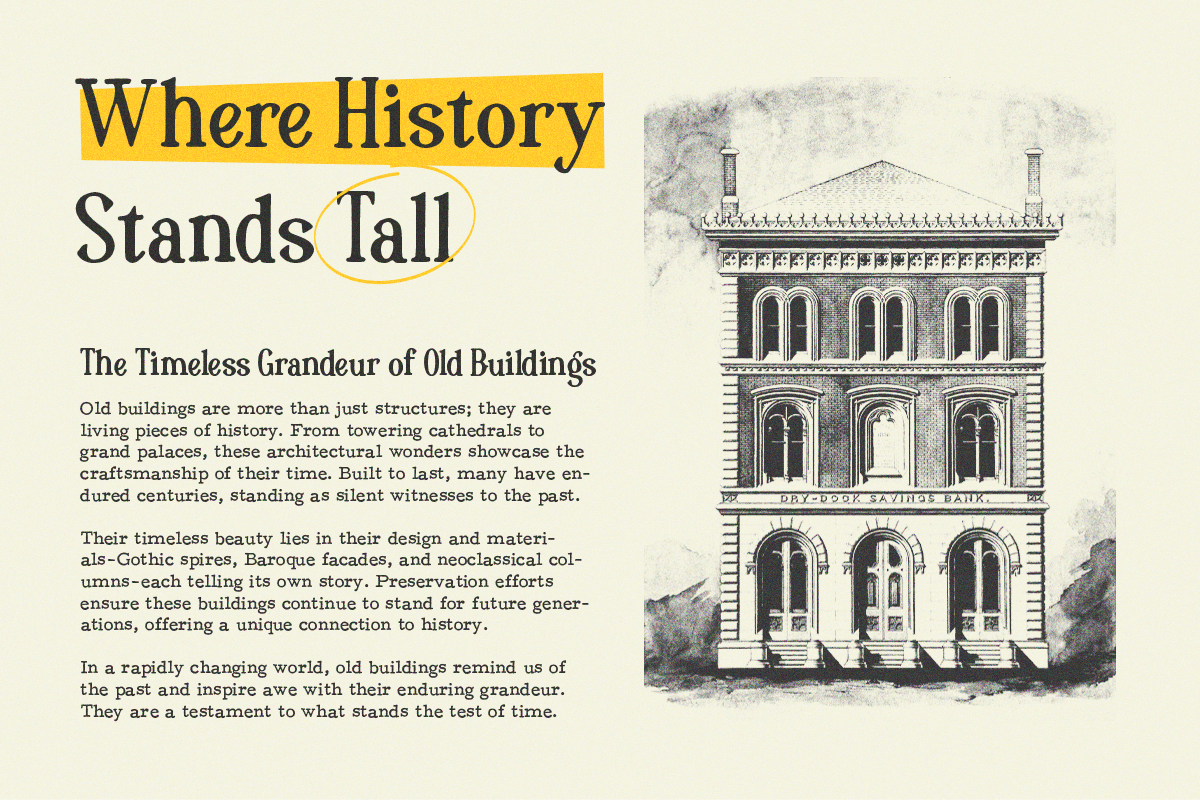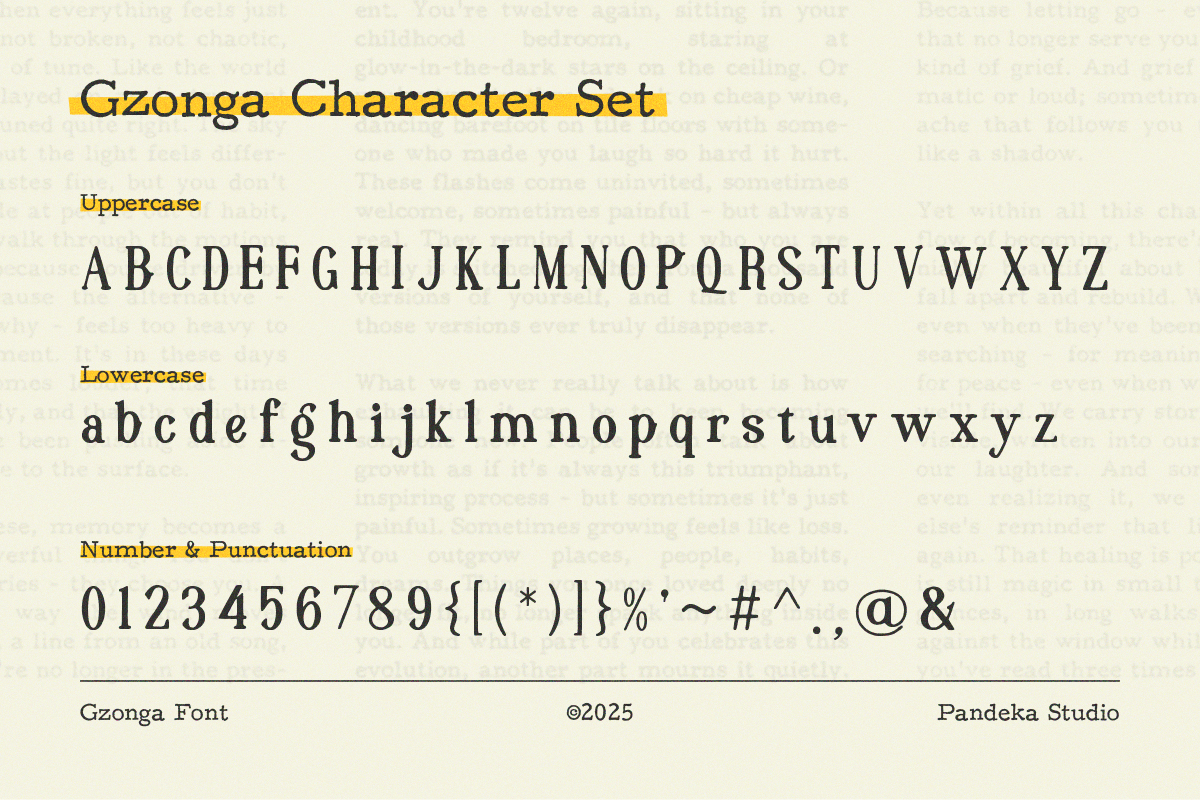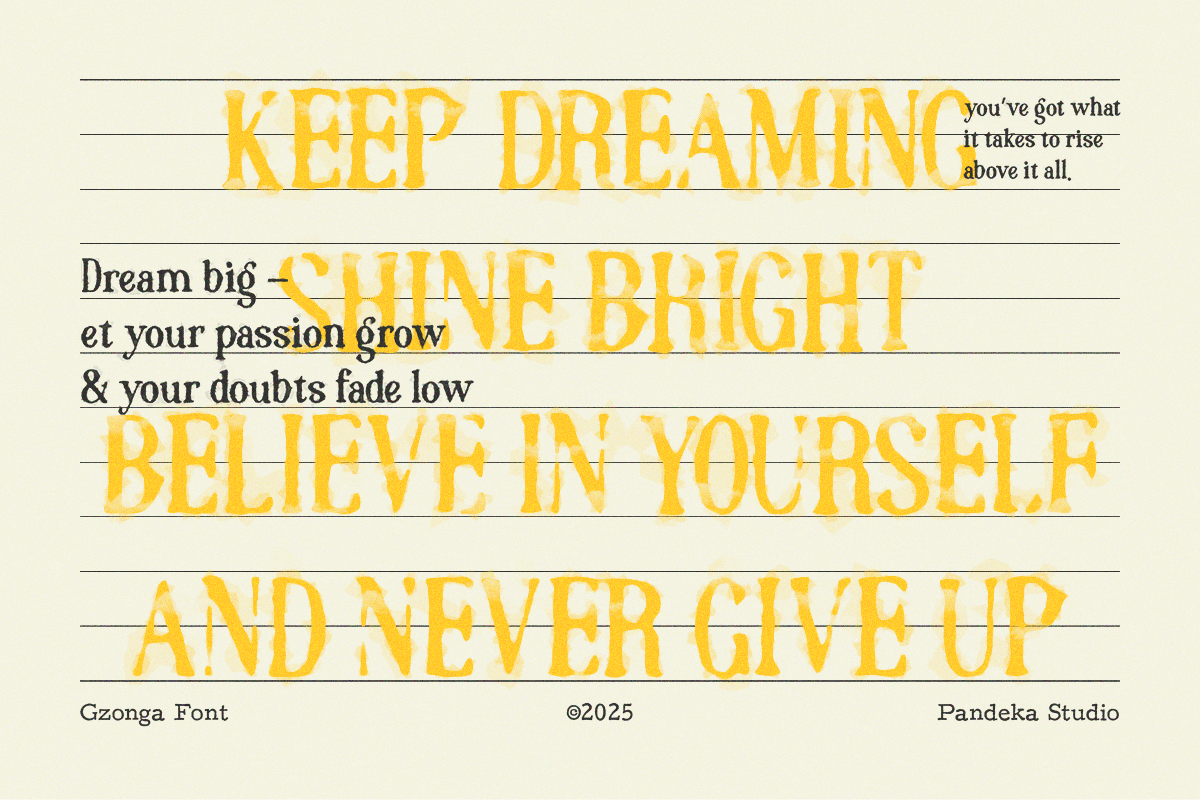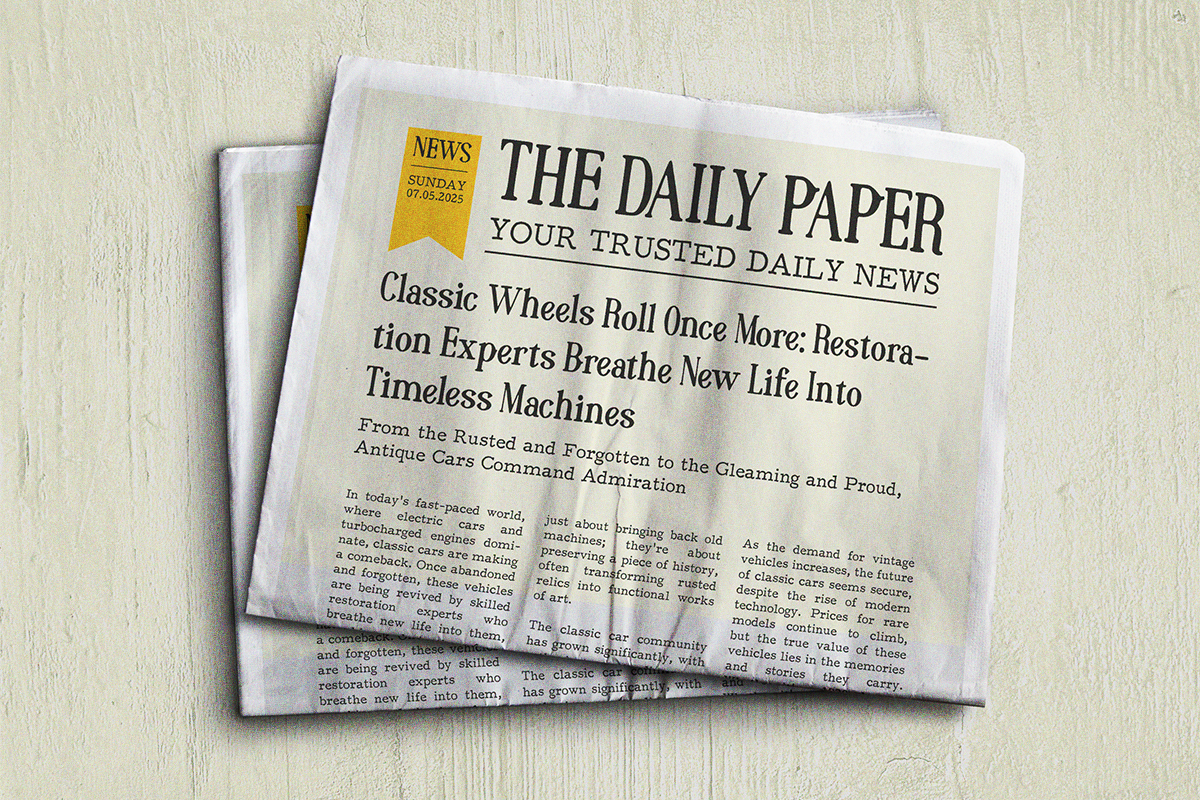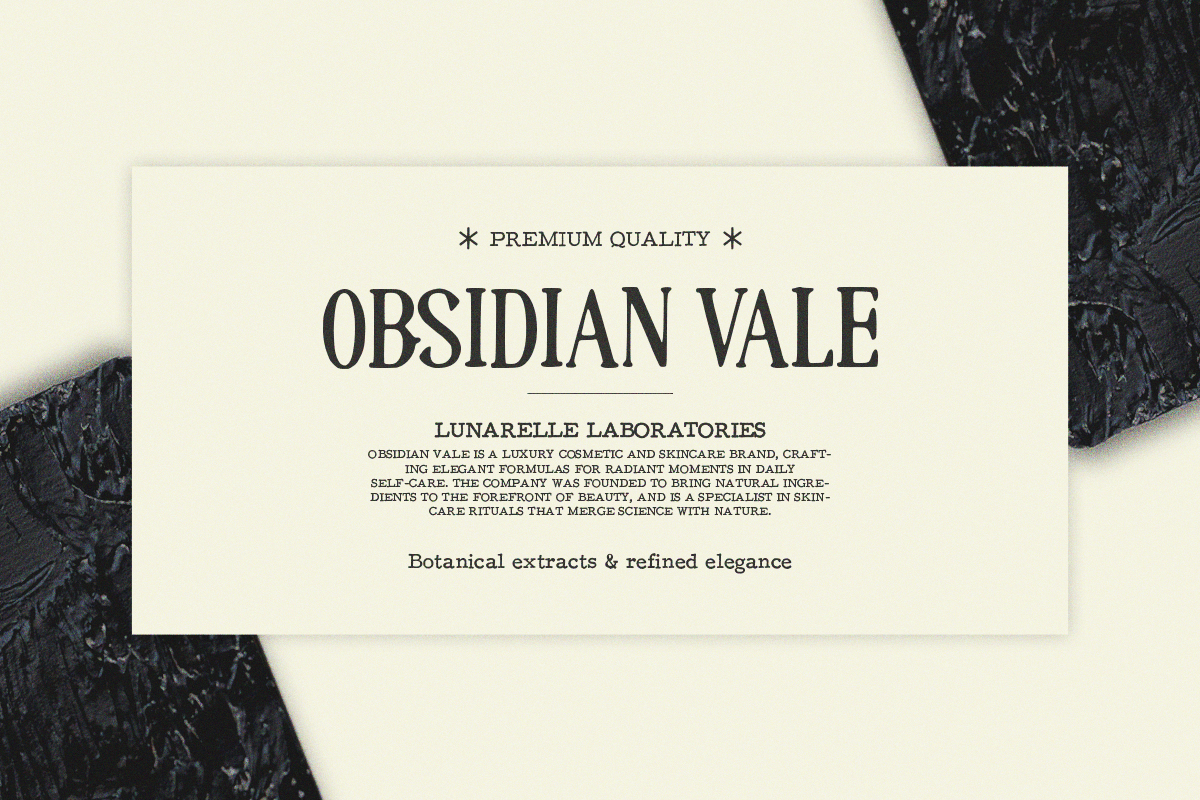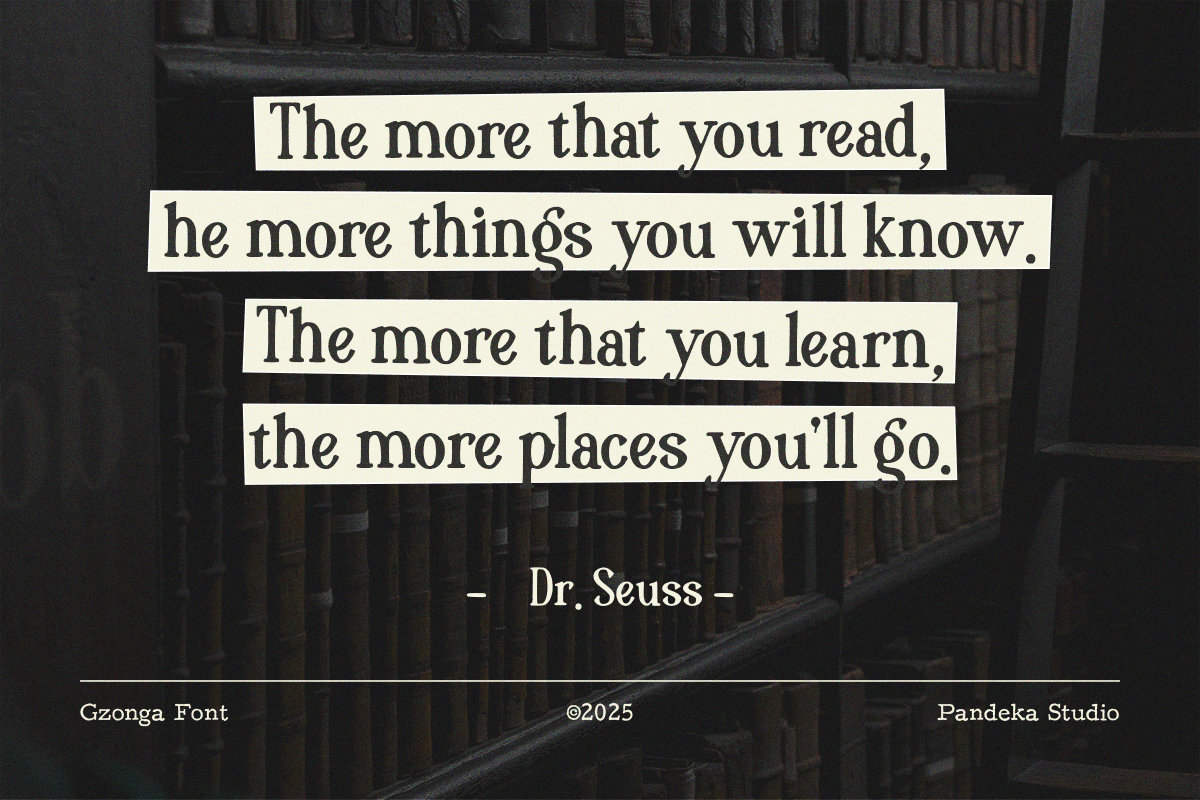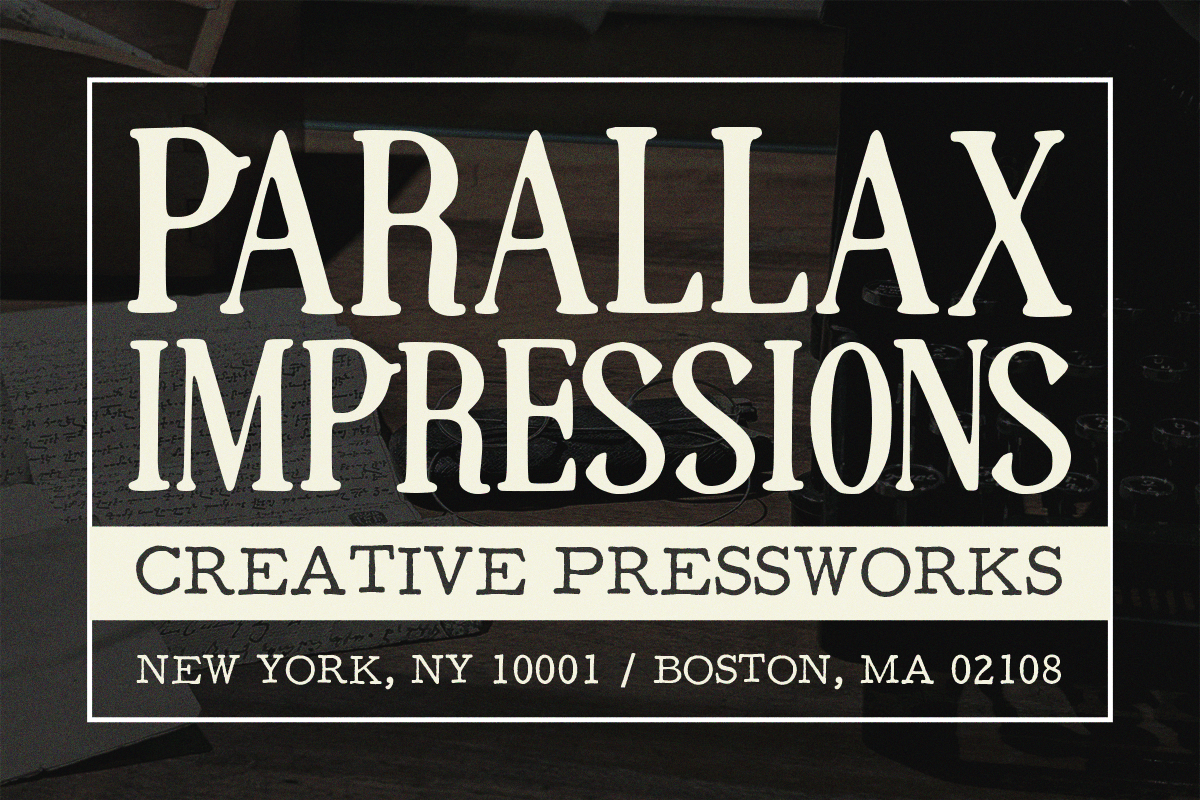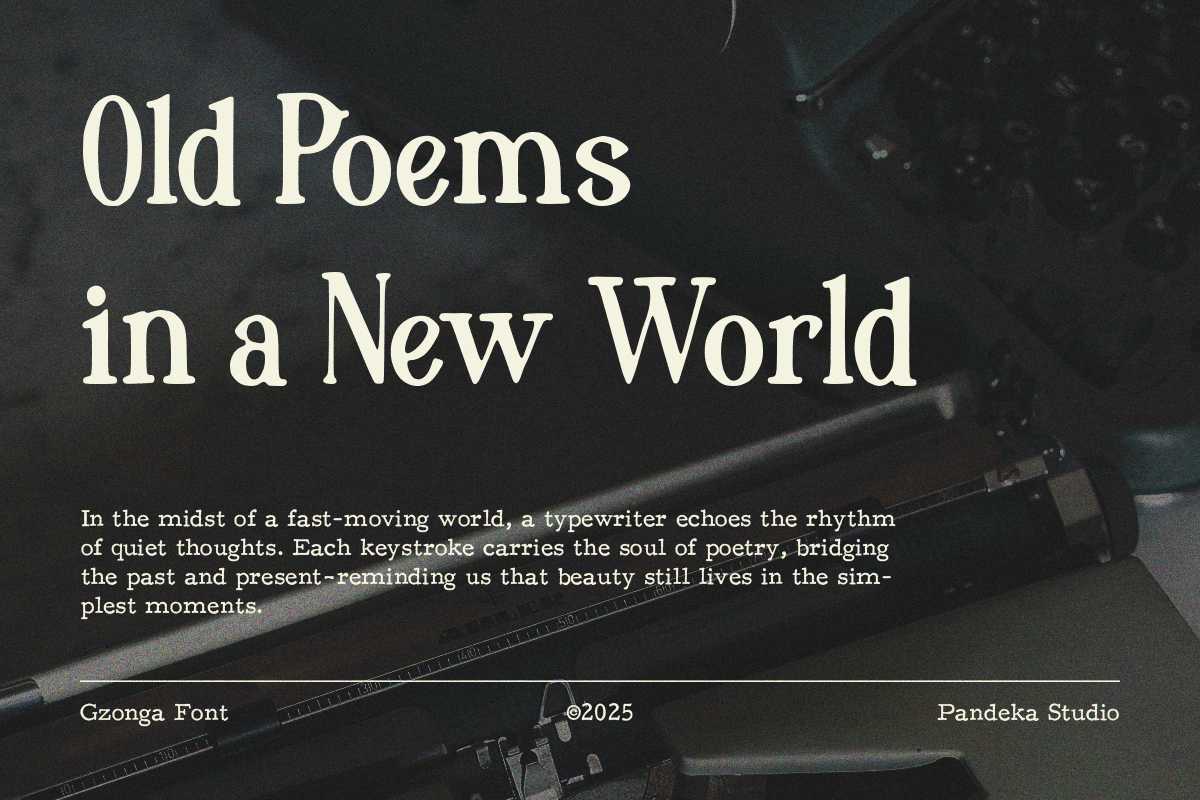
Gzonga - Retro Charm Serif
Gzonga is a retro-inspired serif typeface that blends vintage flair with editorial sophistication. Designed to echo the warmth of old newspapers and classic print, its handcrafted curves and bold letterforms bring heritage and modern storytelling together. Ideal for book covers, branding, magazine layouts, and nostalgic packaging, Gzonga gives your message a timeless voice that resonates. With a complete character set and versatile styling, it’s made for designers who value emotion, history, and standout typographic impact.